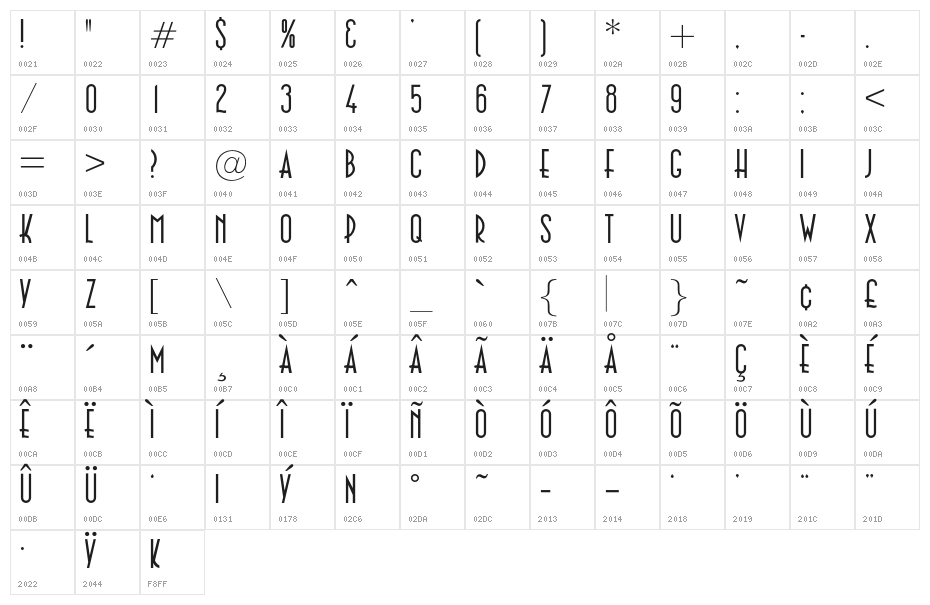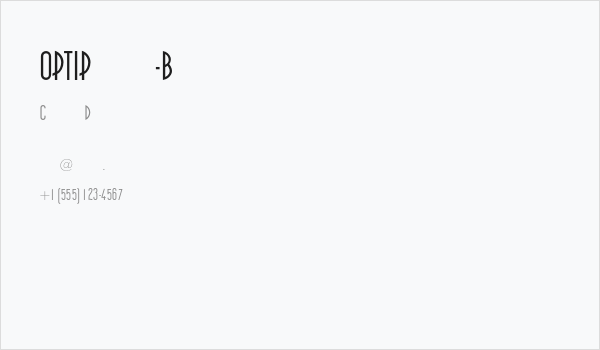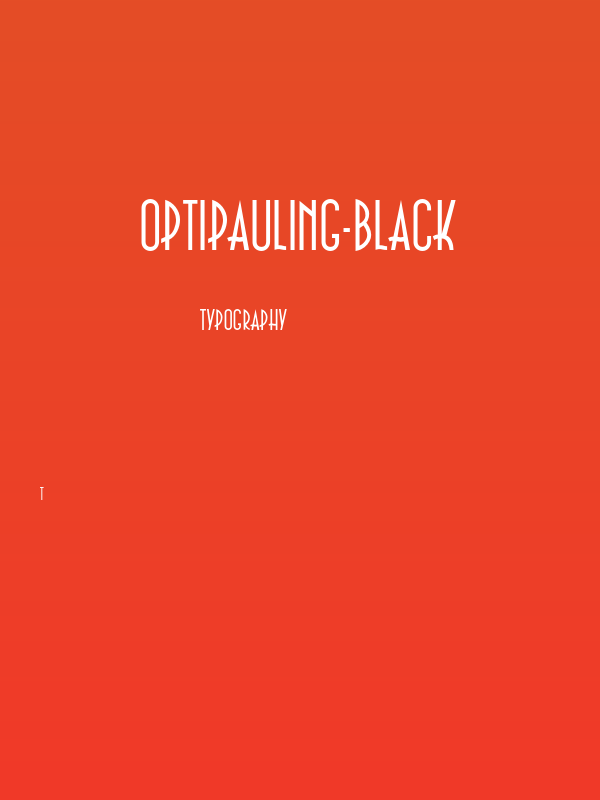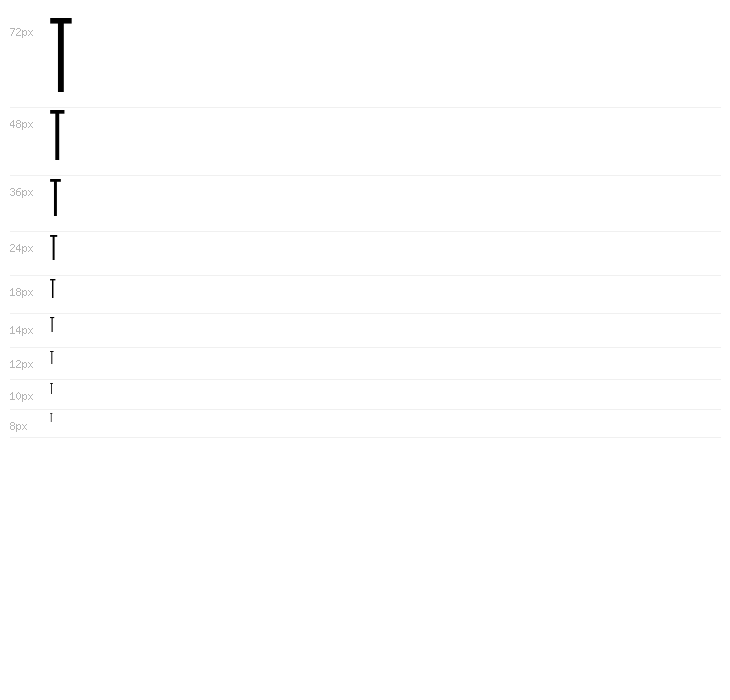
OPTIPauling-Black Font
OPTIPauling-Black Description
This font features a bold and striking design with tall, narrow characters that create a sense of elegance and modernity. The uppercase letters are particularly elongated, giving a unique and sophisticated appearance. The numbers and special characters maintain this sleek style, ensuring consistency across all elements. The font's sharp edges and clean lines contribute to its contemporary feel, making it suitable for a variety of design applications. Its distinct style is both eye-catching and versatile, perfect for making a strong visual impact.
| Proposed Projects | Ideal for branding, poster design, headlines, and any project requiring a modern and impactful typeface. |